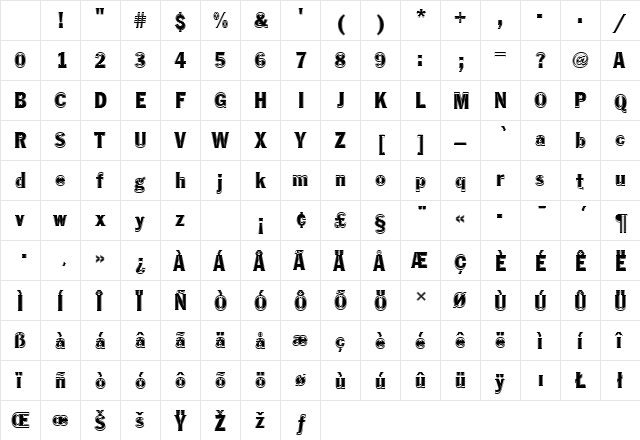
FranklinGotTRegConIn1 Regular
Design Context for FranklinGotTRegConIn1
FranklinGotTRegConIn1 is a composed and adaptable typeface that performs quietly and consistently across a wide range of design contexts.